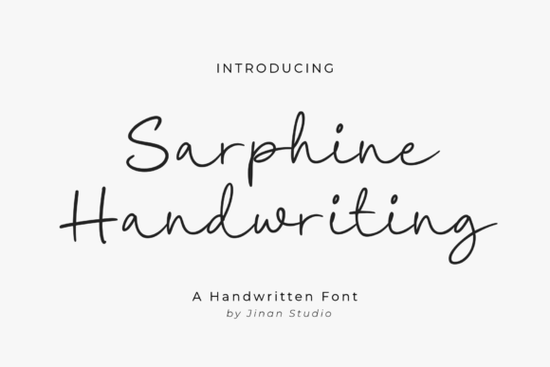
If you’ve been searching for a script font that feels personal but still polished, Sarphine might be exactly what your next project needs. It’s the kind of typeface that doesn’t shout it whispers with grace. Whether you’re designing wedding invites, branding a small shop, or putting together quote graphics for Instagram, Sarphine brings a clean, modern handwriting style that’s easy to pair and even easier to love.
What makes this font stand out is how naturally it flows. The letterforms have just enough variation to feel human, without tipping into messy or overly decorative territory. That balance is why so many designers are turning to fonts like this one especially if they want something that feels custom-written without hiring a calligrapher.
What kinds of projects work best with Sarphine?
You’ll find Sarphine shines in situations where warmth and personality matter:
- Wedding stationery invitations, menus, place cards
- Social media quotes think Pinterest pins or Instagram carousels
- Product packaging soap labels, boutique coffee bags, handmade candles
- Logo design especially for lifestyle brands, bakeries, or wellness studios
- Print-on-demand items mugs, tote bags, journals with inspirational text
It’s also surprisingly versatile across sizes. Even at smaller point sizes, the strokes hold up well no blurring or loss of character. That’s a big plus if you’re working on tags, stickers, or anything meant to be read up close.
How does it compare to other script fonts on Creative Fabrica?
If you’ve browsed the script category before, you’ve probably seen fonts like Sparkle, which leans more playful, or Sweetylike, which has a bouncy, candy-coated vibe. Sarphine sits in a quieter space less whimsical, more refined.
For contrast, check out Amazing Teacher if you need something with more educational charm, or Jaglend if you’re looking for a duo that pairs script with sans-serif. And if you want something with a little more edge, Spicy Chicken brings bold, quirky energy totally different from Sarphine’s calm rhythm.
None of these are “better” they just serve different moods. Sarphine’s strength is its subtlety. It doesn’t demand attention; it earns it.
Is Sarphine easy to use for beginners?
Absolutely. You don’t need advanced typography skills to make it look good. The spacing between letters feels natural right out of the box, and most design tools (Canva, Adobe Illustrator, Affinity Designer, etc.) handle it without any extra tweaking.
One tip: avoid using all caps. Sarphine was designed to mimic casual handwriting, so lowercase or sentence case will always look more authentic. If you need emphasis, try increasing the weight slightly or adding subtle tracking instead.
Also worth noting it includes standard punctuation, numerals, and basic symbols, so you won’t hit roadblocks when adding dates, prices, or addresses.
Does it support multiple languages?
Yes, but not extensively. Sarphine covers the core Latin alphabet used in English, French, Spanish, German, Italian, Portuguese, and a few others. If you’re typesetting in Vietnamese, Turkish, or Nordic languages with special diacritics, double-check the glyph set before committing. For most everyday uses in Western Europe and North America, you’re covered.
Any pairing suggestions?
Sarphine plays nicely with minimalist sans-serifs. Think fonts like Montserrat, Lato, or even system fonts like Helvetica Neue. The contrast between clean lines and soft curves creates visual harmony without competing for attention.
Avoid pairing it with other script fonts unless you’re going for intentional chaos and even then, tread lightly. One elegant script per layout is usually enough.
Pro tip: Try setting Sarphine as your display text (headlines, titles, featured quotes) and use a simple sans-serif for body copy. It keeps things readable while letting the personality of Sarphine shine through.
Fonts like Sarphine remind us that sometimes the quietest choices leave the strongest impression. If your project calls for something that feels handwritten but still professional, give it a try. You might be surprised how much personality a single typeface can bring without saying too much.